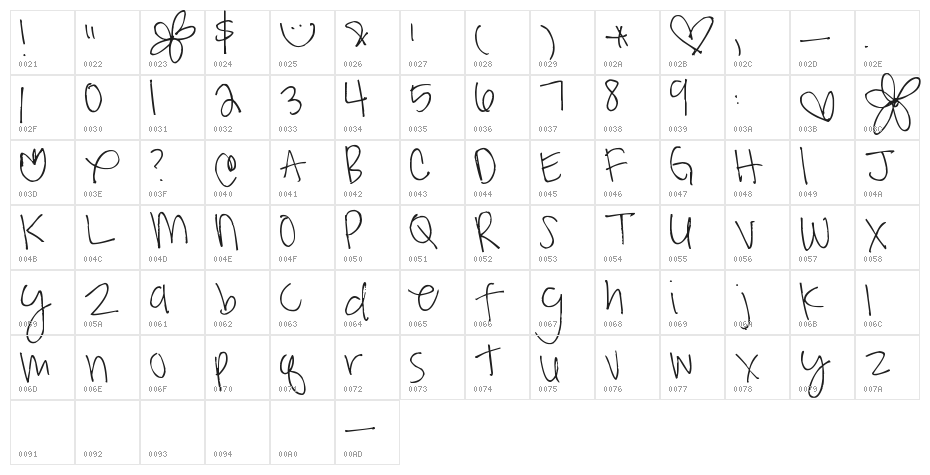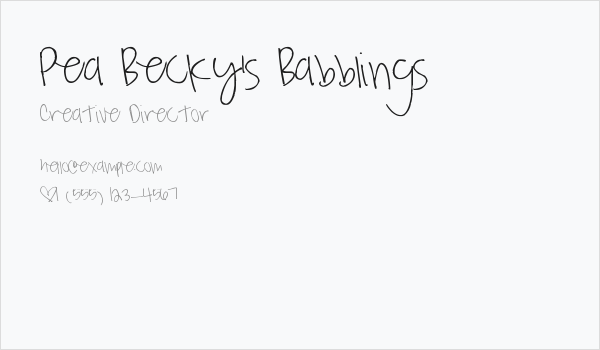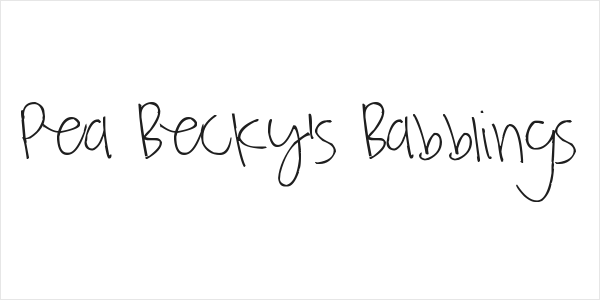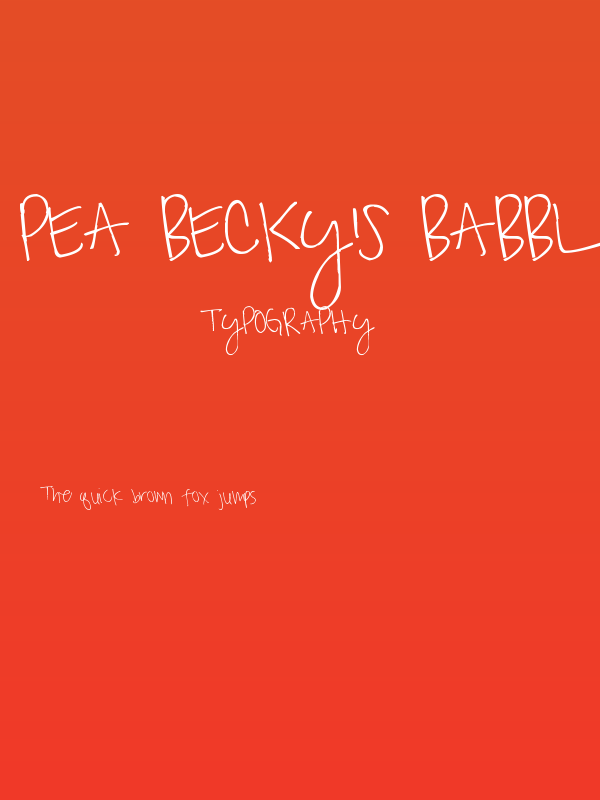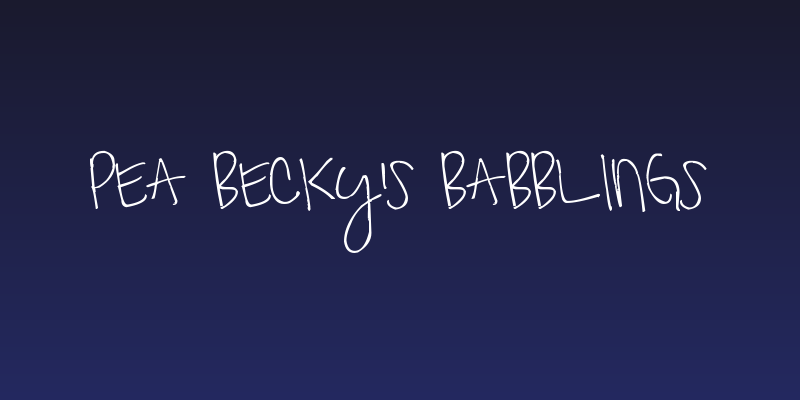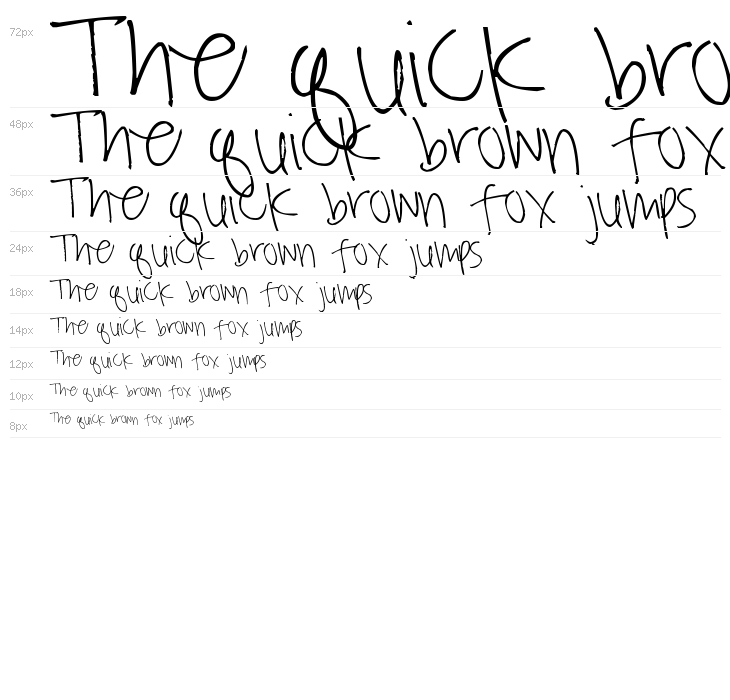
Pea Becky's Babblings Font
Pea Becky's Babblings Description
This font exudes a playful and casual handwritten style, characterized by its loose and informal strokes. The letters are unevenly spaced, adding to its whimsical charm. The uppercase and lowercase letters maintain a consistent flow, with slightly exaggerated loops and curves that give it a lively appearance. Numbers and special characters follow the same playful design, making it suitable for projects that require a personal touch. The overall look is approachable and friendly, ideal for conveying warmth and creativity.
| Use Case | Greeting cards, Personal notes, Creative projects |
| Proposed Projects | Perfect for personal notes, greeting cards, children's books, and creative projects that require a friendly and informal touch. |